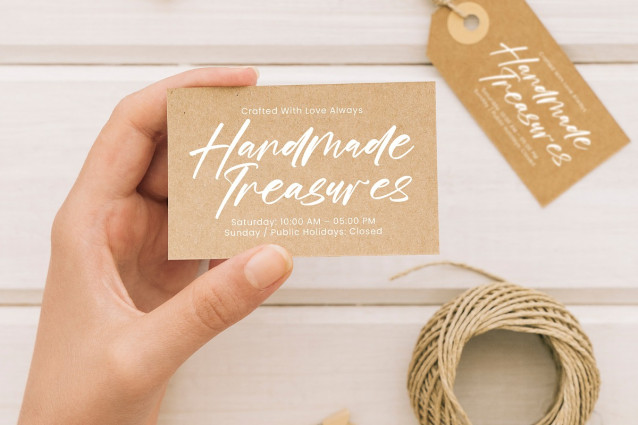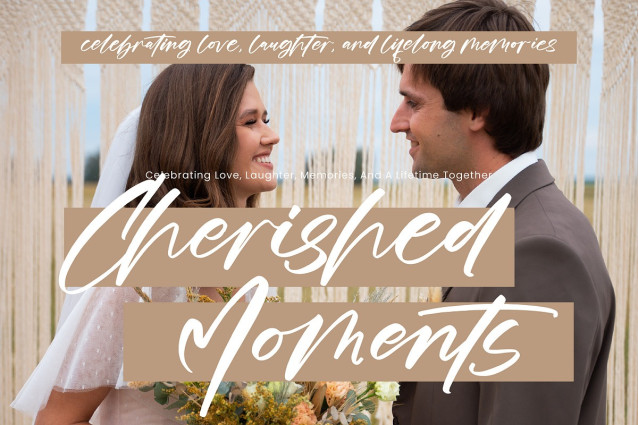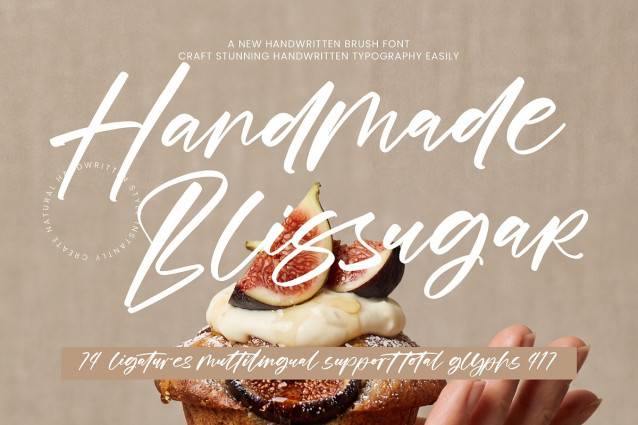
Handmade Blissugar Font
Handmade Blissugar Font is a bold and expressive handwritten brush font designed to bring energy and personality into your designs. Its natural strokes and dynamic flow create a lively, handcrafted feel that stands out beautifully.